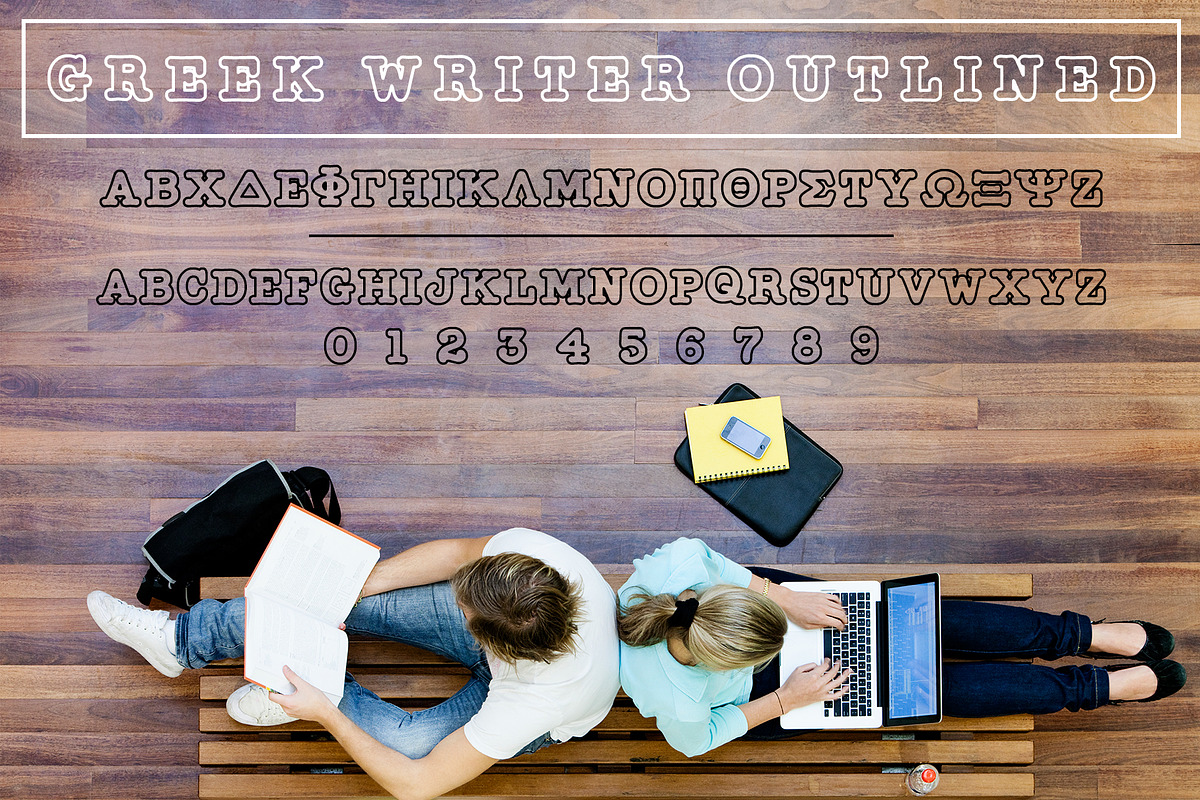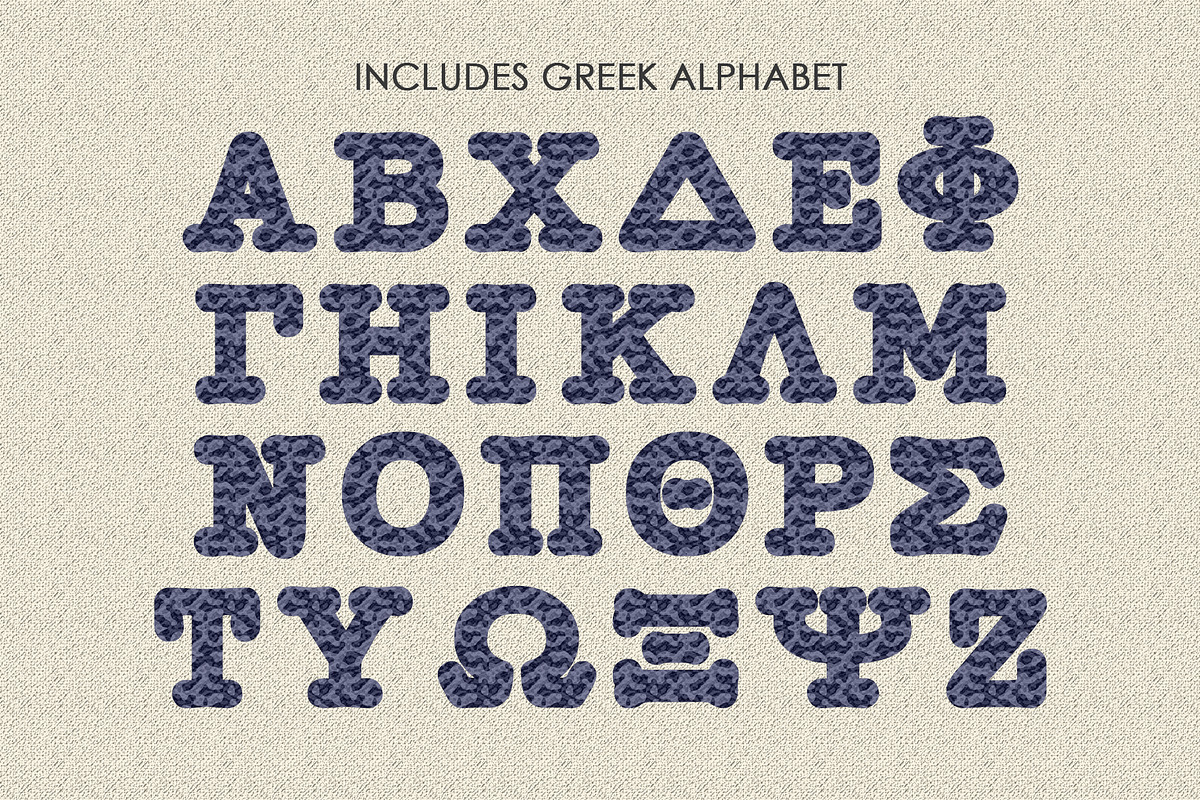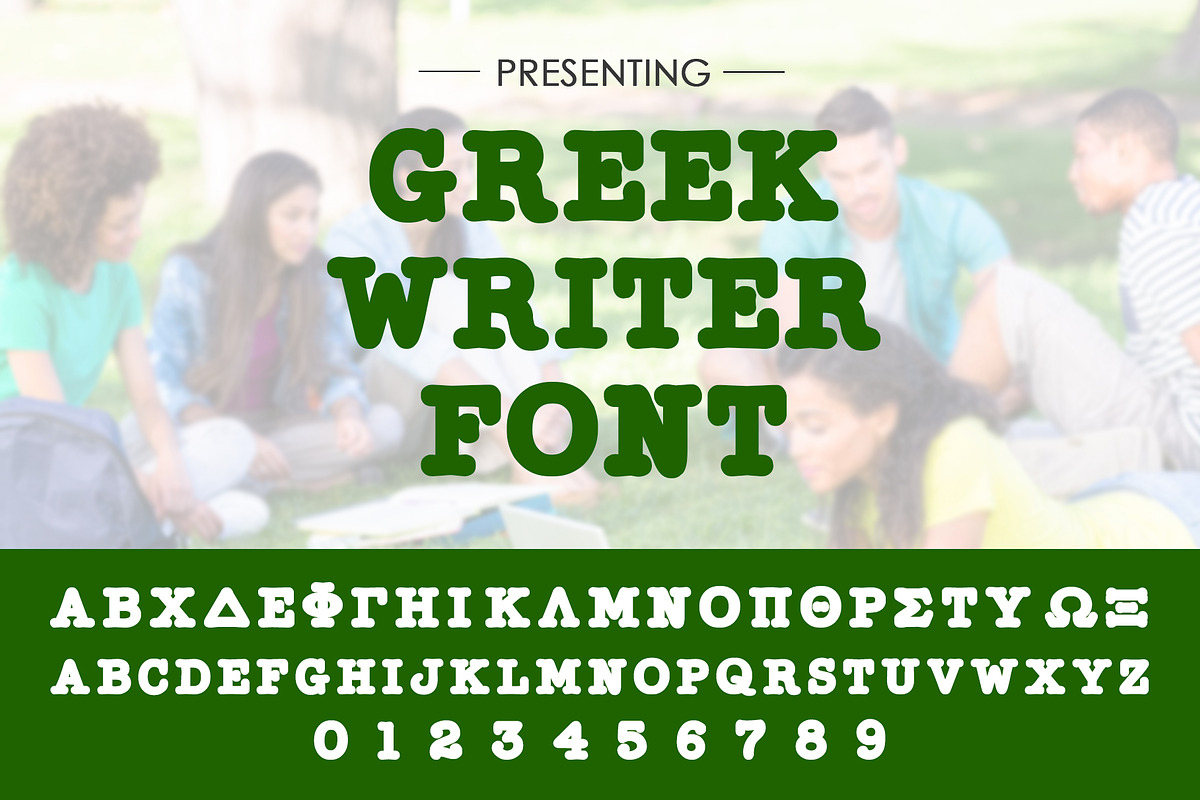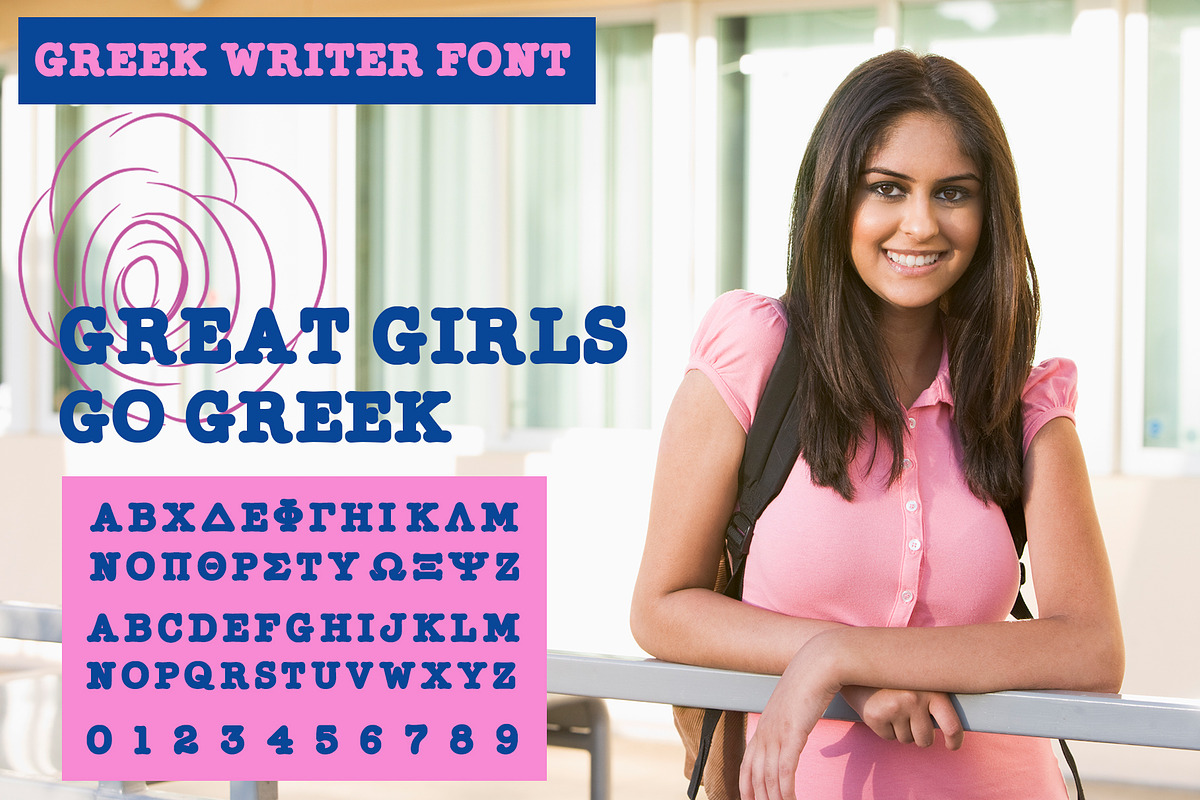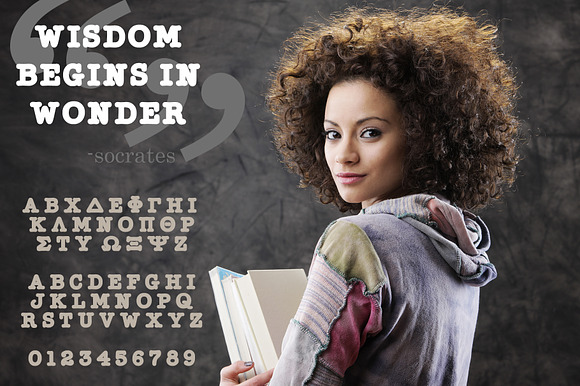
Greek Writer Font Set
The Greek Writer font is perfect for designing Greek and Collegiate T-shirts, promotional products and more. The font includes a solid and outline version of both Greek and English characters. Note this font is designed specifically for fraternities and sororities so it does not have lower case Greek fonts.
- The font includes a solid and outline version of both Greek and English characters.